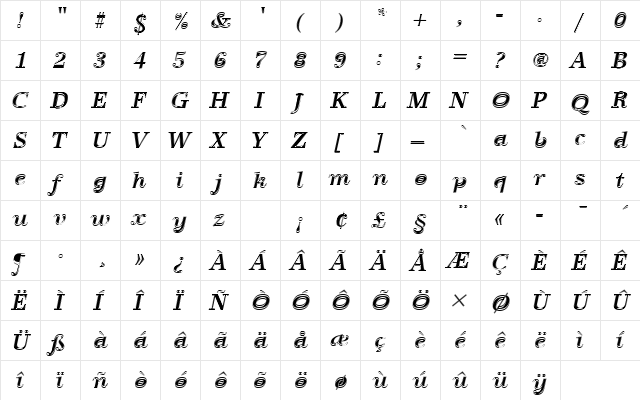
URWAntiquaTMedItaIn1 Regular
Design Context for URWAntiquaTMedItaIn1 Typeface
URWAntiquaTMedItaIn1 takes a measured approach to typography — its balanced proportions and neutral character make it a reliable workhorse for both digital and print work.